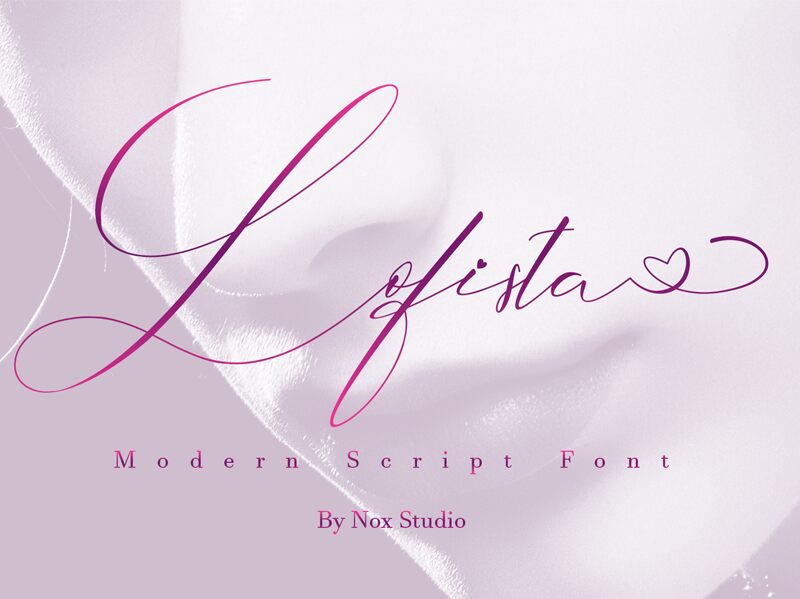
Lofista - Personal Use
Lofista by Sarif Letter is a stunning extra-light calligraphy font that adds an elegant touch to any project. With its beautifully fluid strokes and graceful curves, this font is perfect for wedding invitations, greeting cards, and other sophisticated designs. Its delicate weight also makes it a great choice for fashion brands and high-end beauty products. Whether you're looking to add some class to your branding or create a romantic atmosphere for your writing, Lofista is the font you need. Trust us, your audience won't be able to take their eyes off of it!